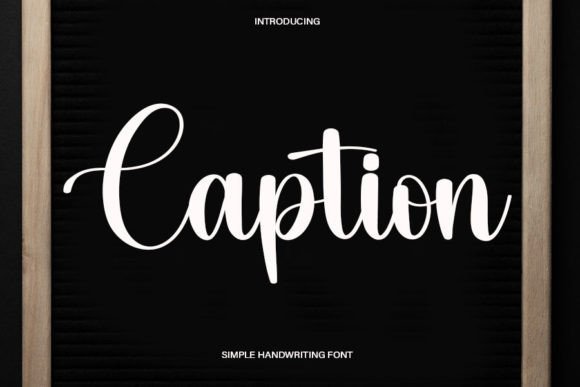
The Quest for the Perfect Caption Font
I’ll never forget the time I was working on a project for a client who needed a unique and cool design for their food product labels. I had spent hours browsing through font libraries, but nothing seemed quite right. That was when I stumbled upon the Caption font – a delicate handwritten font that instantly caught my eye. In this article, I’ll share my experience with the Caption font, its features, and how to make the most of it in your designs.
A Personal Review of Caption Font
As a designer, I’m always on the lookout for fonts that can add a personal touch to my projects. Here’s what I love about the Caption font:
- ✨ Unique and delicate handwritten style
- ✅ Perfect for creating a cool and sophisticated design
- 🎉 Highly versatile – works well for letters, invitations, food products, titles, and more
While the Caption font is amazing, it’s not without its quirks. Here are a few things to keep in mind:
- 🤔 Limited character set – may not be suitable for body text or lengthy content
- ⚠️ May not work well with very small font sizes
The Story Behind Caption Font
The Caption font was designed by a talented typographer who wanted to create a unique and elegant handwritten font. Inspired by classic calligraphy, the designer carefully crafted each letter to create a beautiful, flowing script. The result is a font that’s both sophisticated and approachable – perfect for a wide range of design projects.
| Font Name | Caption Font |
| Author | Ganden Letter |
| What is the best way to use the Caption font? | The Caption font works well for titles, headings, and short paragraphs. It’s perfect for creating a cool and sophisticated design. |
| Is the Caption font available in different styles? | Currently, the Caption font is available in a single style. However, the designer may release additional styles or variations in the future. |